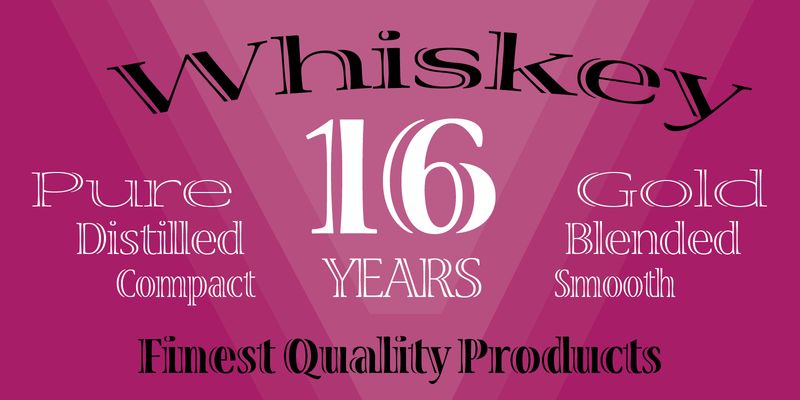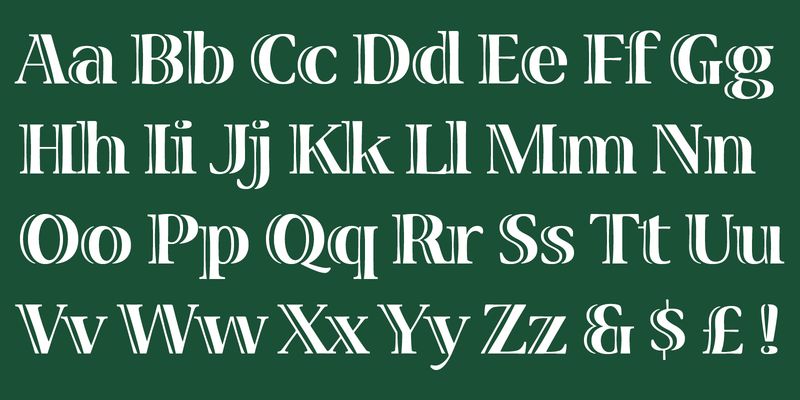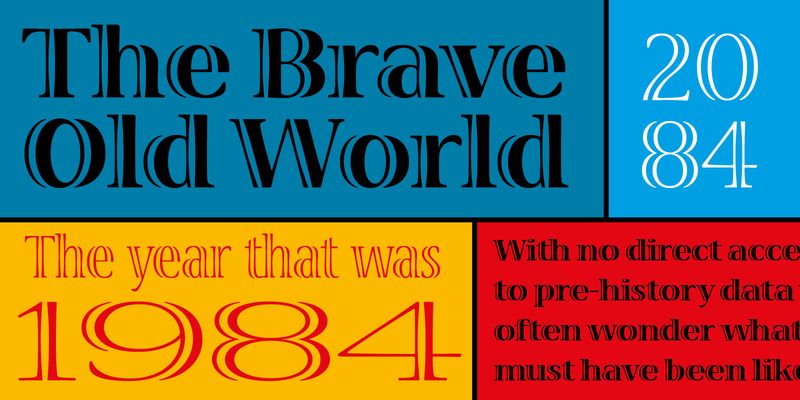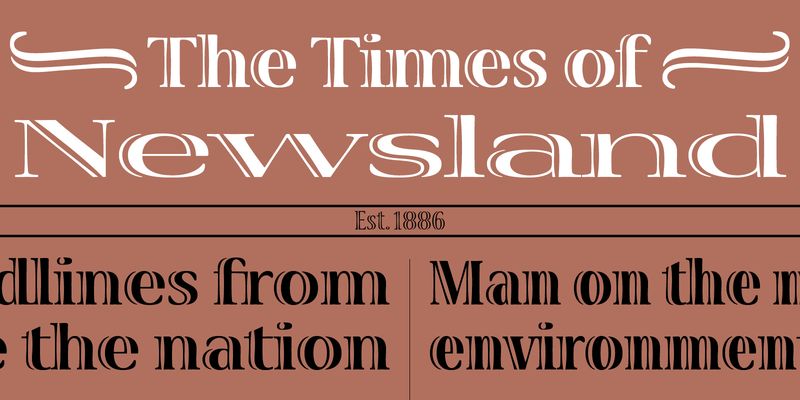
Viva, designed by Carol Twombly, was released in 1993 as the first open-face design in the Adobe Originals Library. The display possibilities are essentially unlimited in advertising, book titles, posters, and any display material that needs an original look.